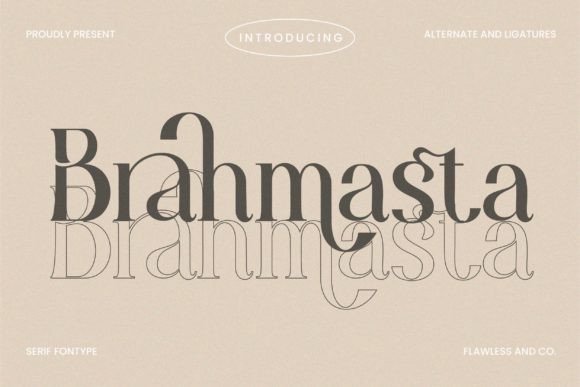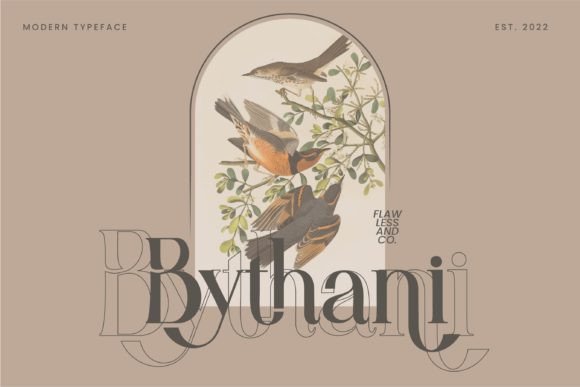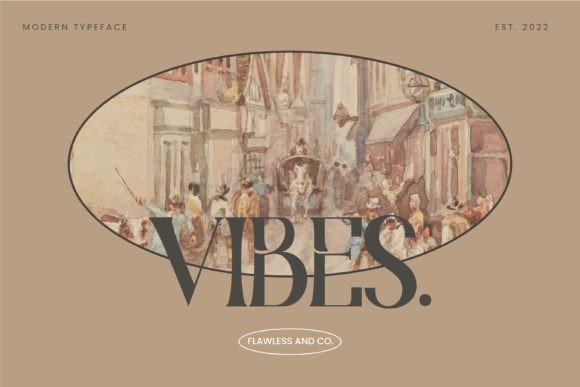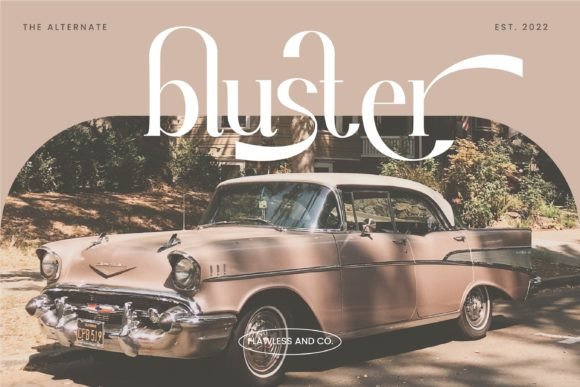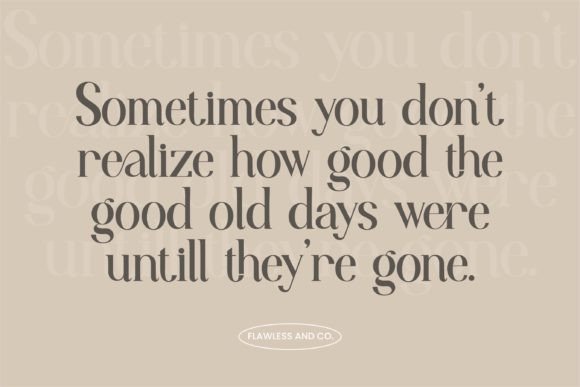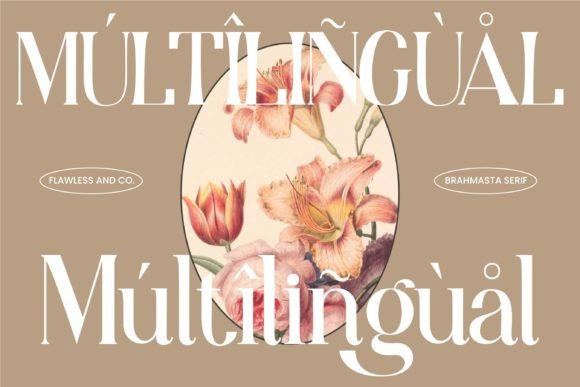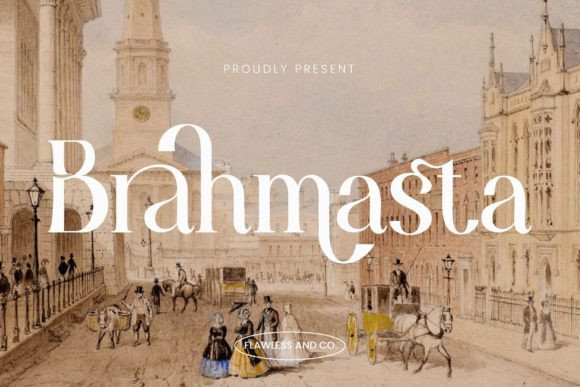
The Ultimate Guide to Brahmasta Font: Elevate Your Designs with Luxury and Elegance
I’ll never forget the time I was working on a luxury branding project for a high-end jewelry client. I had spent hours perfecting the logo design, but something was missing. The font I had chosen just wasn’t giving off the sophisticated vibe I was going for. That’s when I stumbled upon Brahmasta Font, and it completely transformed my design. If you’re a designer, crafter, or creative hobbyist looking to add a touch of luxury to your projects, you’re in the right place!
What is Brahmasta Font?
Brahmasta is a modern and elegant serif font that is sure to add a luxury spark to any design project you wish to create. Its sleek lines, refined details, and classic feel make it perfect for a wide range of applications, from branding and advertising to packaging and editorial design.
An Honest Review of Brahmasta Font
What I Love About Brahmasta Font ✨
- ✅ Elegant and sophisticated design that’s perfect for luxury brands
- ✅ Supports multiple languages and features a wide range of glyphs
- ✅ Regularly updated with new features and improvements
- ⚠️ Some users may find the font a bit too slender for certain applications
- ⚠️ Limited availability of certain OpenType features in older software
The Backstory of Brahmasta Font
Brahmasta Font was designed by a team of typographers who wanted to create a font that would capture the essence of luxury and elegance. Inspired by classic serif fonts, they added modern touches to create a unique and sophisticated design.
| Font Name | Brahmasta Font |
| Author | Flawless And Co |
Q: What is Brahmasta Font?
A: Brahmasta Font is a modern and elegant serif font designed for luxury brands and creative professionals.
Q: Is Brahmasta Font suitable for body text?
A: Yes, Brahmasta Font is highly legible and suitable for body text, making it a great choice for editorial design and other applications where readability is key.